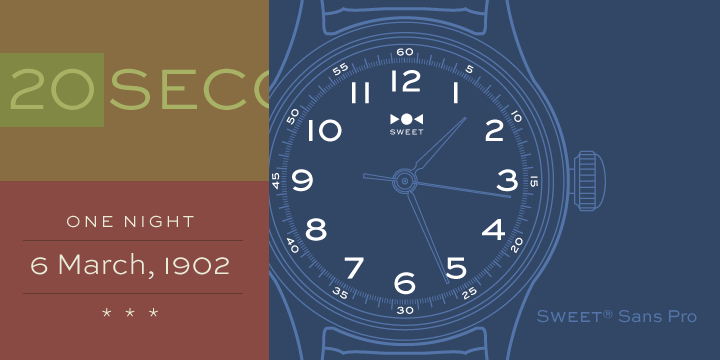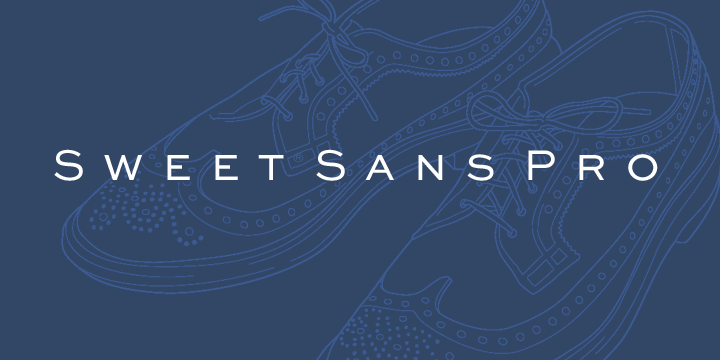
Sweet Fonts Collection is a growing range of engraving lettering styles from the 20th Century. With the advent of the engraving machine (a pantograph device) around 1900, commercial engraving moved from the use of hand-cut plates to the use of masterplates (lettering patterns). Lettering was traced from the masterplate using the engraving machine, letter by letter, onto a coated steel plate, that would then be etched in a chemical bath. The resulting plate was used to print engraved stationery with the raised print distinctive to the process. Many of these lettering styles were used for decades for commercial and social applications (letterheads, wedding invitations, etc.), but as they were merely traced alphabets, were not “fonts”. Many remain unavailable in digital form. Over time, a number of the most popular styles were adapted to phototype, which sped up the process of plating for engraving, avoiding the need to trace each letter by hand with the engraving machine. Later, when type went digital, these phototype fonts were revived as digital fonts. As a result, the styles offered by engravers narrowed over time, as has the range of engraving styles revived in digital form. The Sweet Fonts Collection represents an effort to locate and revive obscure, engraved lettering styles that are at risk of fading away, as well as to re-interpret familiar designs for broader application. Sweet Fonts Collection. Published by MVB Fonts, San Francisco Bay Area, California. TEL: 510 525-4288